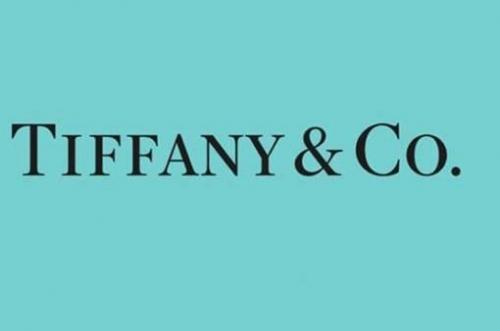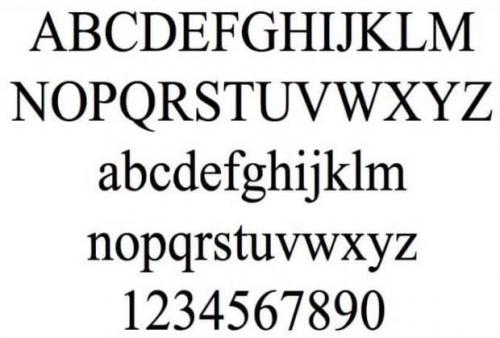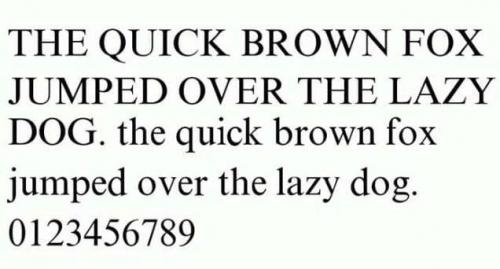
Times New Roman Font is the font used for logo of Tiffany and CO. Times New Roman is a serif typeface. It was commissioned by the British newspaper The Times in 1931 and conceived by Stanley Morison, the artistic adviser to the British branch of the printing equipment company Monotype, in collaboration with Victor Lardent, a lettering artist in The Times’s advertising department. It has become one of the most popular typefaces of all time and is installed on most desktop computers.
- Designer: Stanley Morison, Victor Lardent